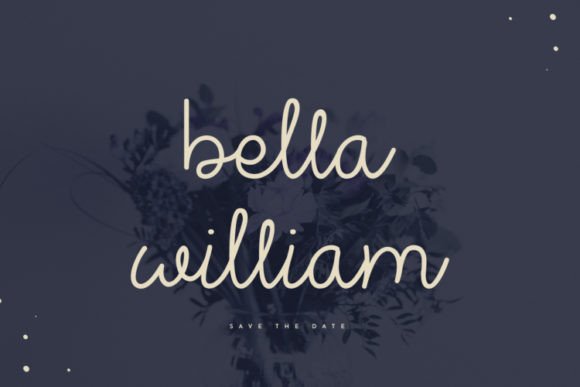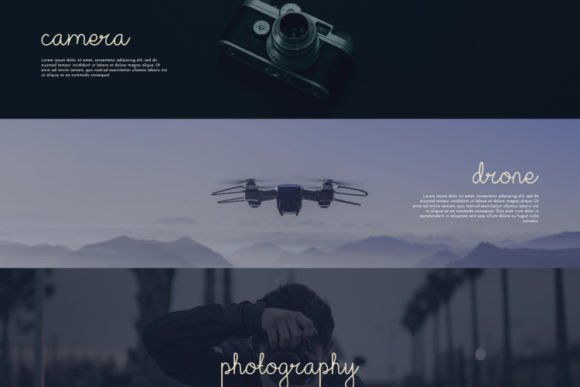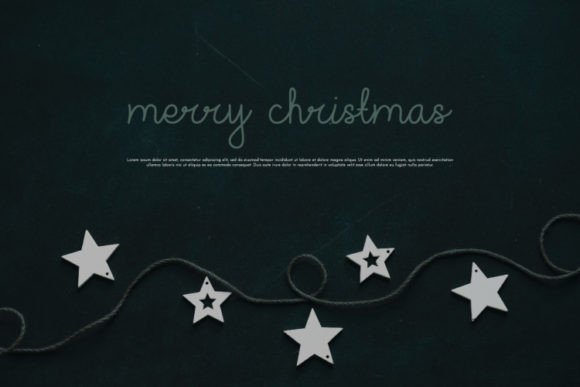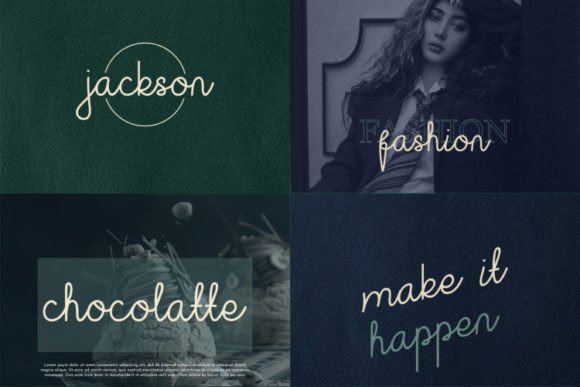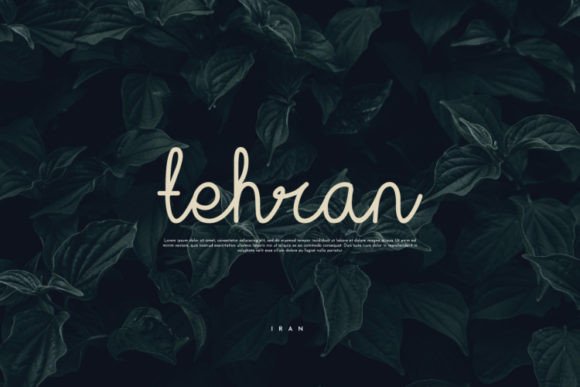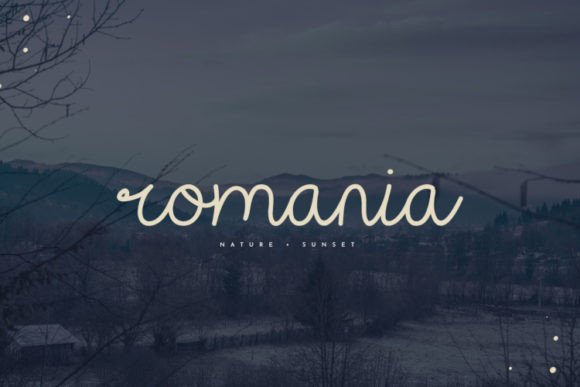
Bring Your Designs to Life with the Elegant Alleigra Font
Remember the thrill of staring at a blank canvas, waiting for that spark of creativity to ignite? It’s the moment when your ideas start to take shape, and the possibilities seem endless. For designers, this is the sweet spot where imagination meets reality, and the right font can make all the difference. That’s where the Alleigra Font comes in – a delicate, elegant, and flowing handwritten font that brings a touch of sophistication to any design.
Whether you’re working on a branding project, a wedding invitation, or a personal blog, the Alleigra Font is the perfect addition to elevate your creative ideas. Its beautiful and well-balanced characters make it a versatile choice that matches a wide range of designs, from modern to vintage, and everything in between.
- Unique Characteristics: Elegant, refined, and sophisticated design; perfect for luxury brands, fashion, and high-end publications
- Font Style: Script, elegant, and refined; suitable for headings, titles, and short paragraphs
I recently had the chance to work with Alleigra Font, and I must say it’s a unique and interesting font. ✨ One of the things that works well is its elegant and refined feel, perfect for creating a sophisticated and high-end look. The font is also highly customizable, making it easy to adjust to your specific design needs.
Another advantage of Alleigra Font is its wide range of languages supported. It’s a great option for designers working on projects that require multiple language support.
- Elegant and refined feel ✨
- Wide range of languages supported
- ⚠️ Limited availability of font weights and styles
- ⚠️ Not ideal for use in small text sizes
Overall, I would say that Alleigra Font is a solid choice for designers looking for a sophisticated and elegant font. However, it may not be the best option for projects that require a wide range of font weights or styles.
Alleigra Font is ideal for:
- Editorial and publishing projects
- High-end business proposals and presentations
To get the most out of Alleigra Font, use it in combination with other elegant fonts and design elements. Experiment with different font sizes, colors, and alignments to create a unique and sophisticated look.